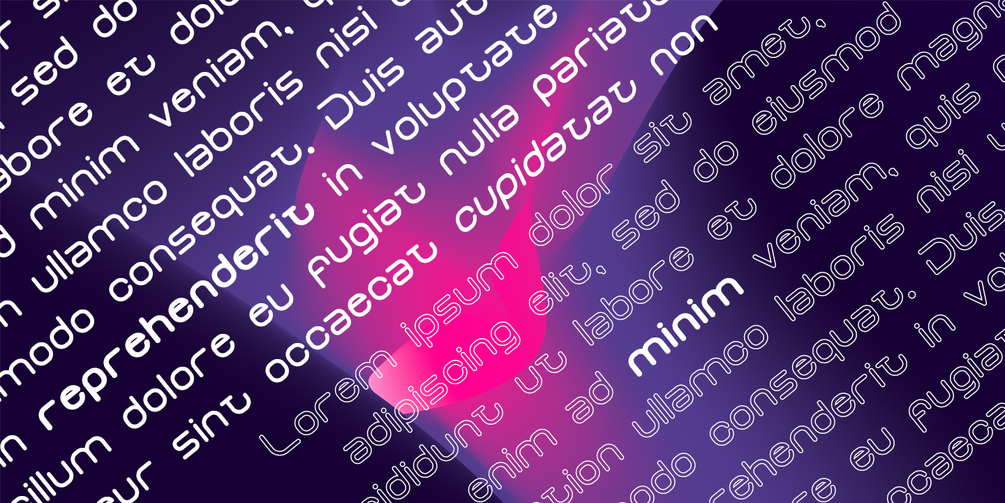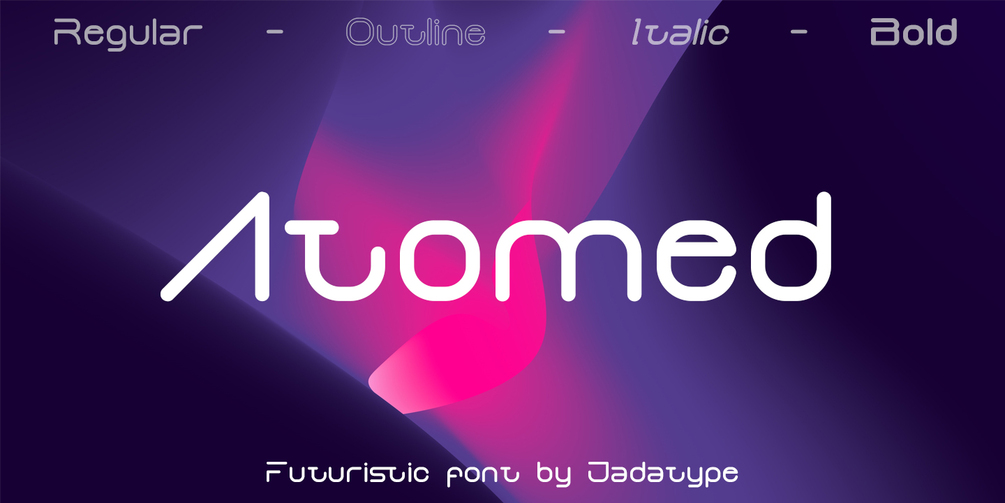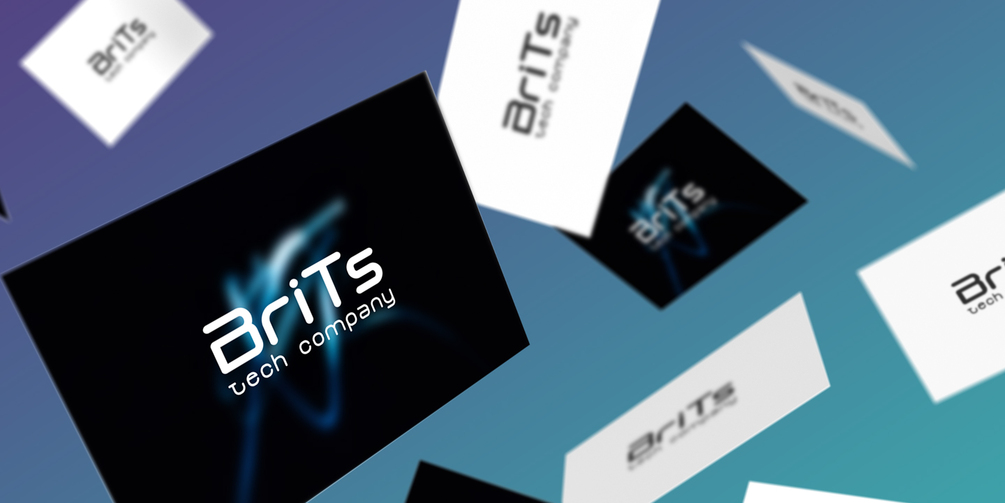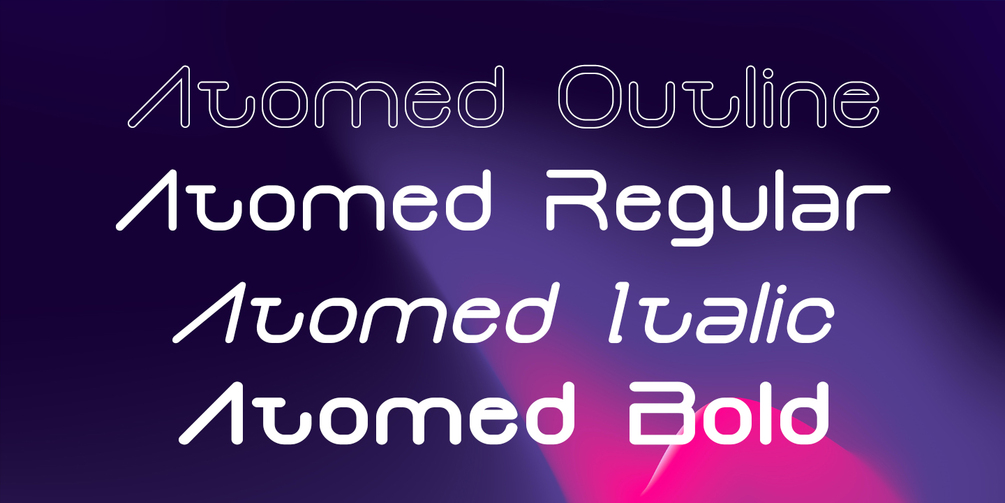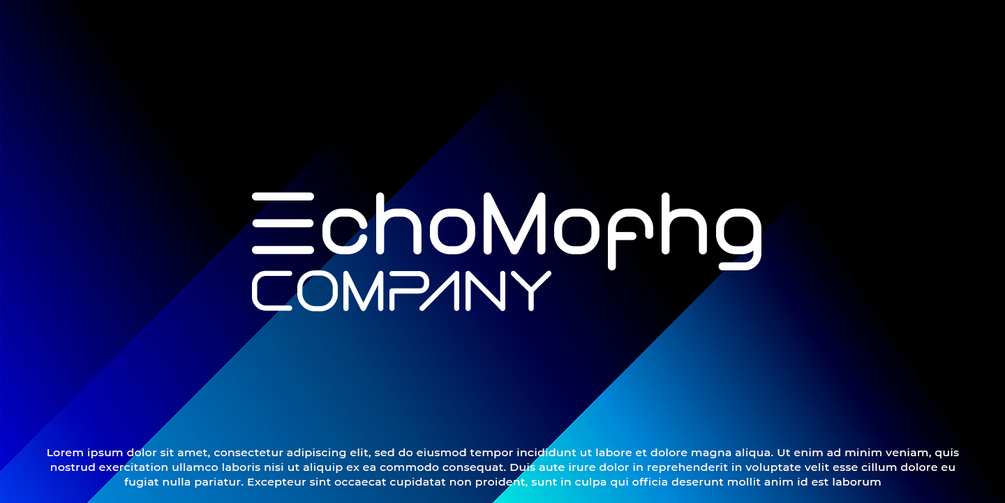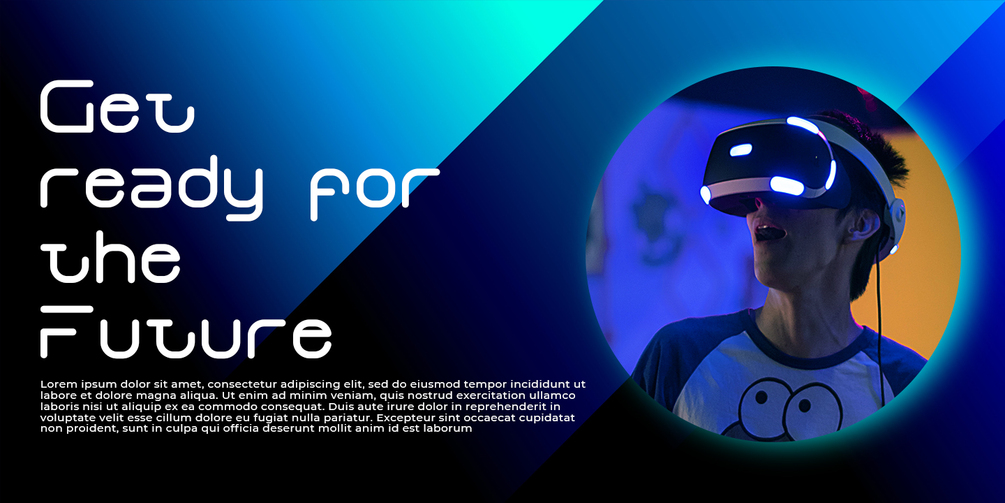
Atomed Font
Atomed is a display font with Futuristic Feel. suitable for events, logotypes, Sci-fi stuff, modern & futuristic vibe, social media, products, and so on. contains standard English letters, numbers, punctuation, ligature, and several accents that support multilingualism.
• Bold, Italic, Outline, and Regular